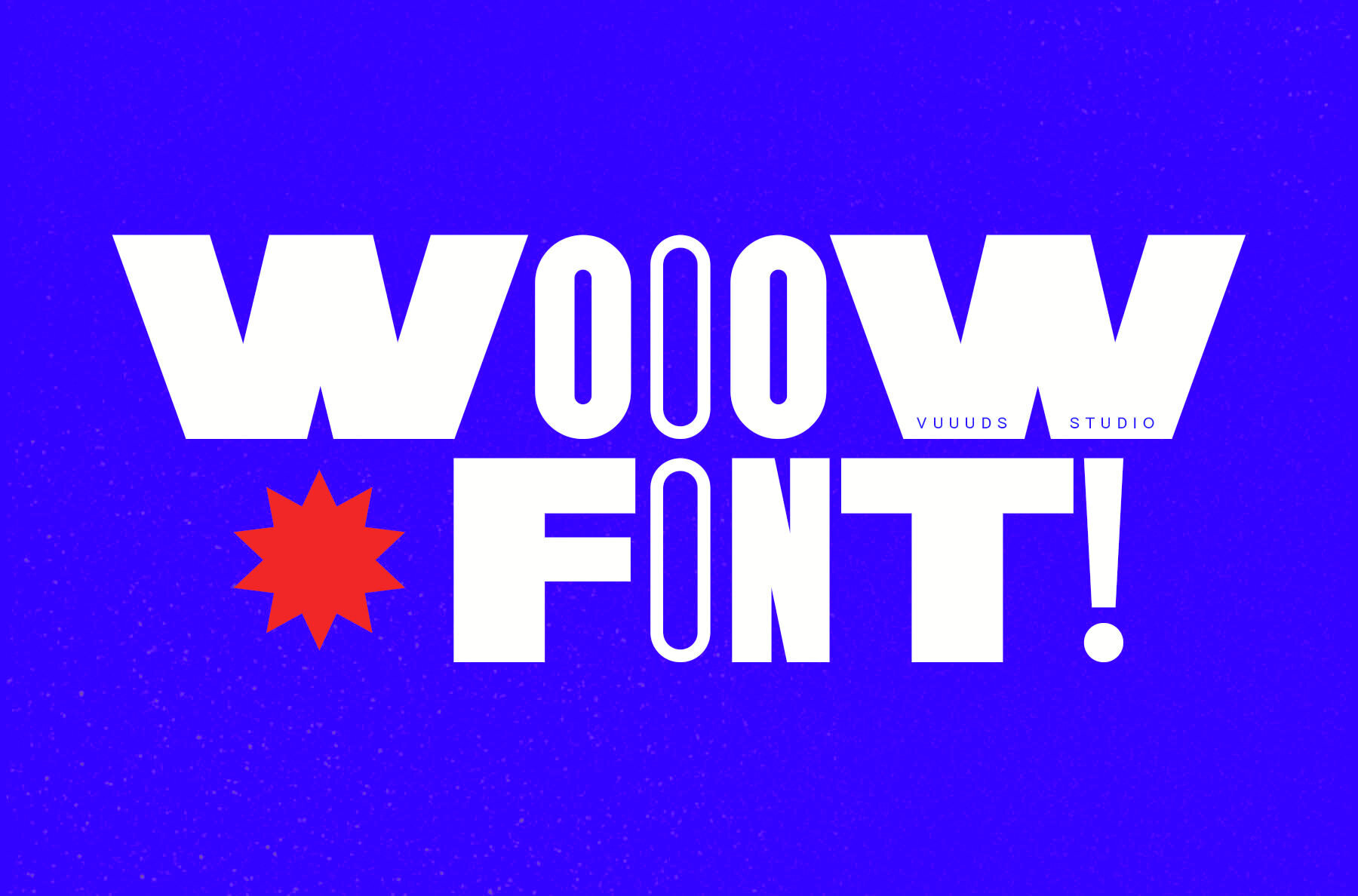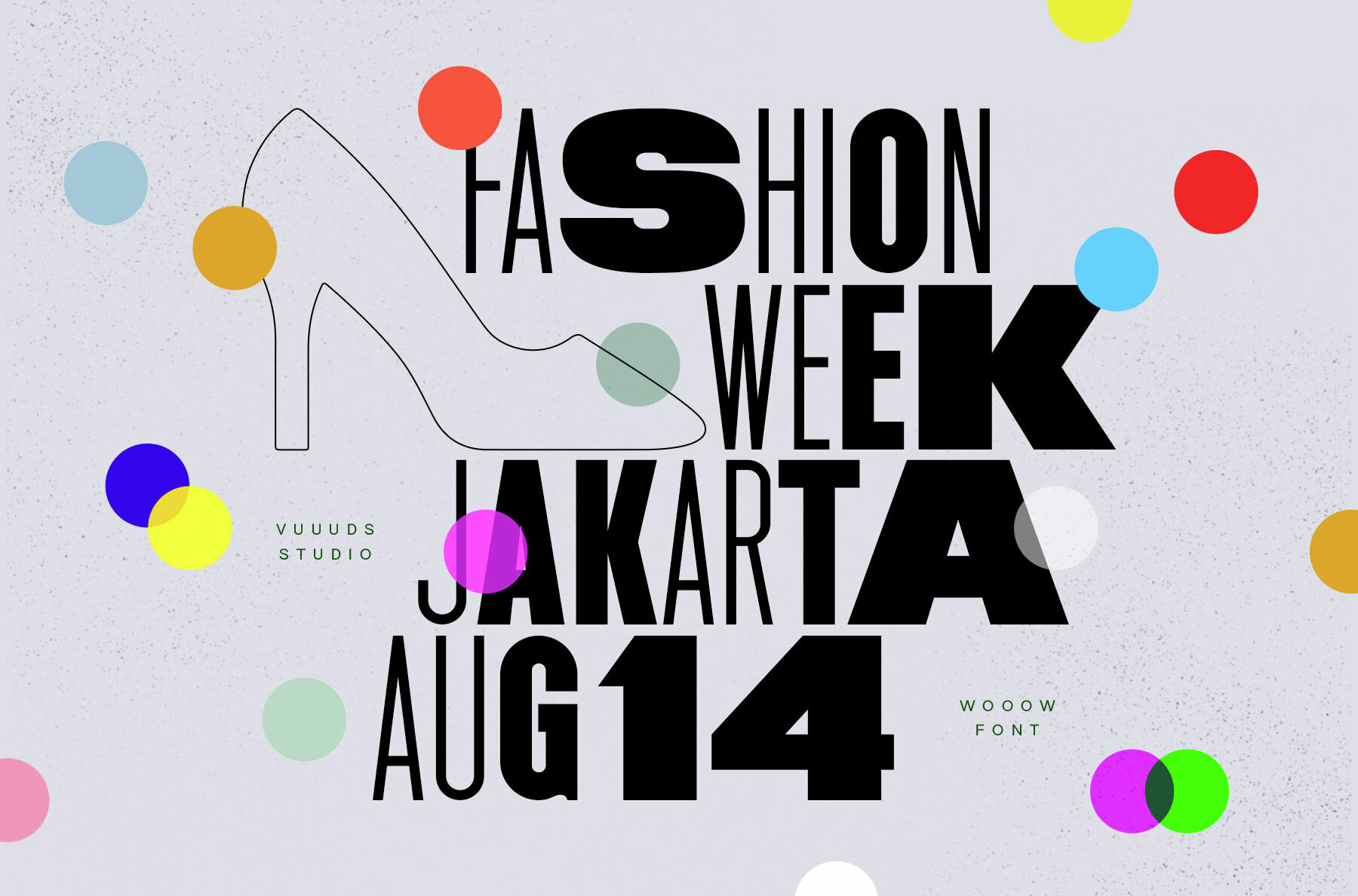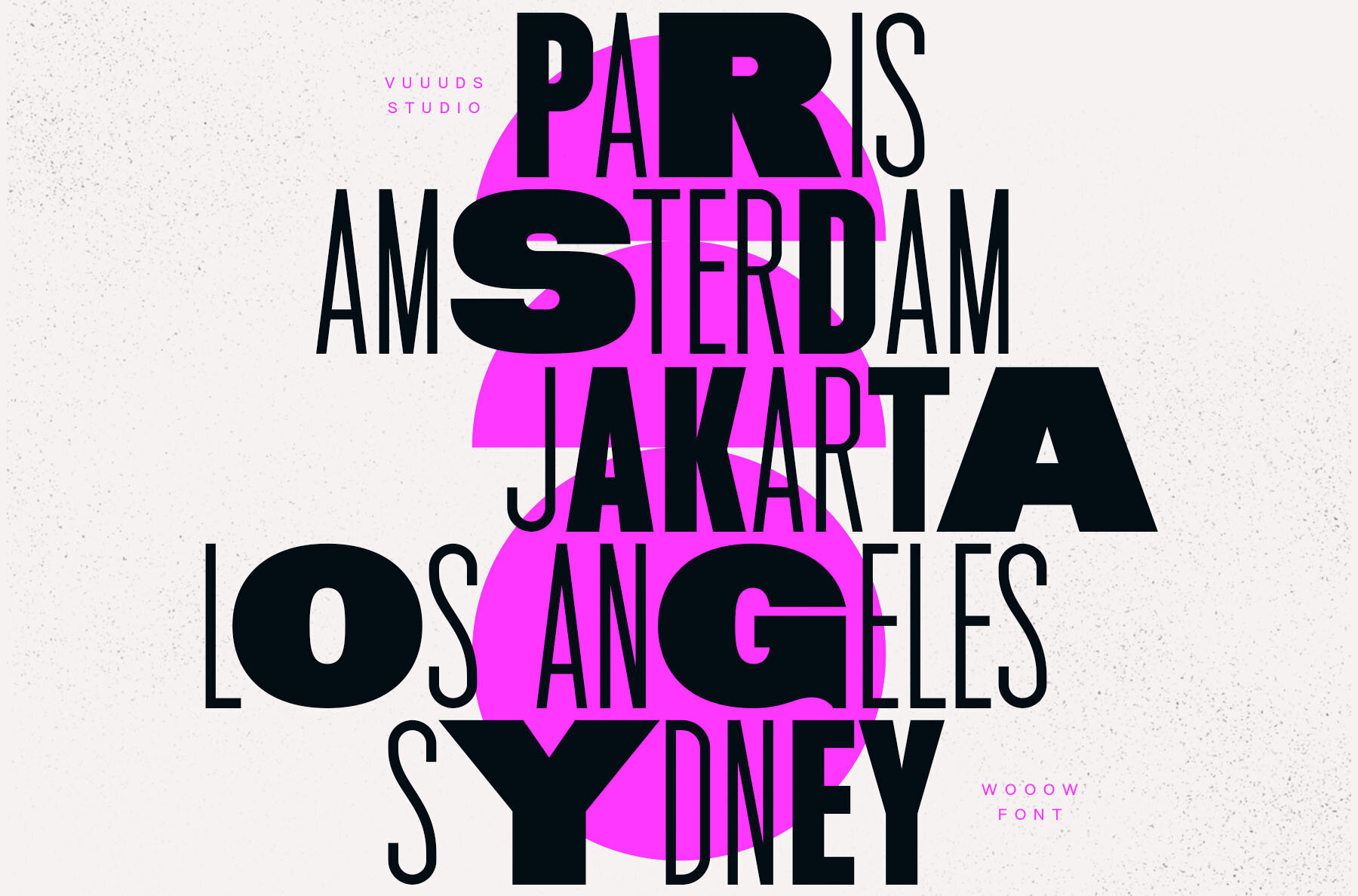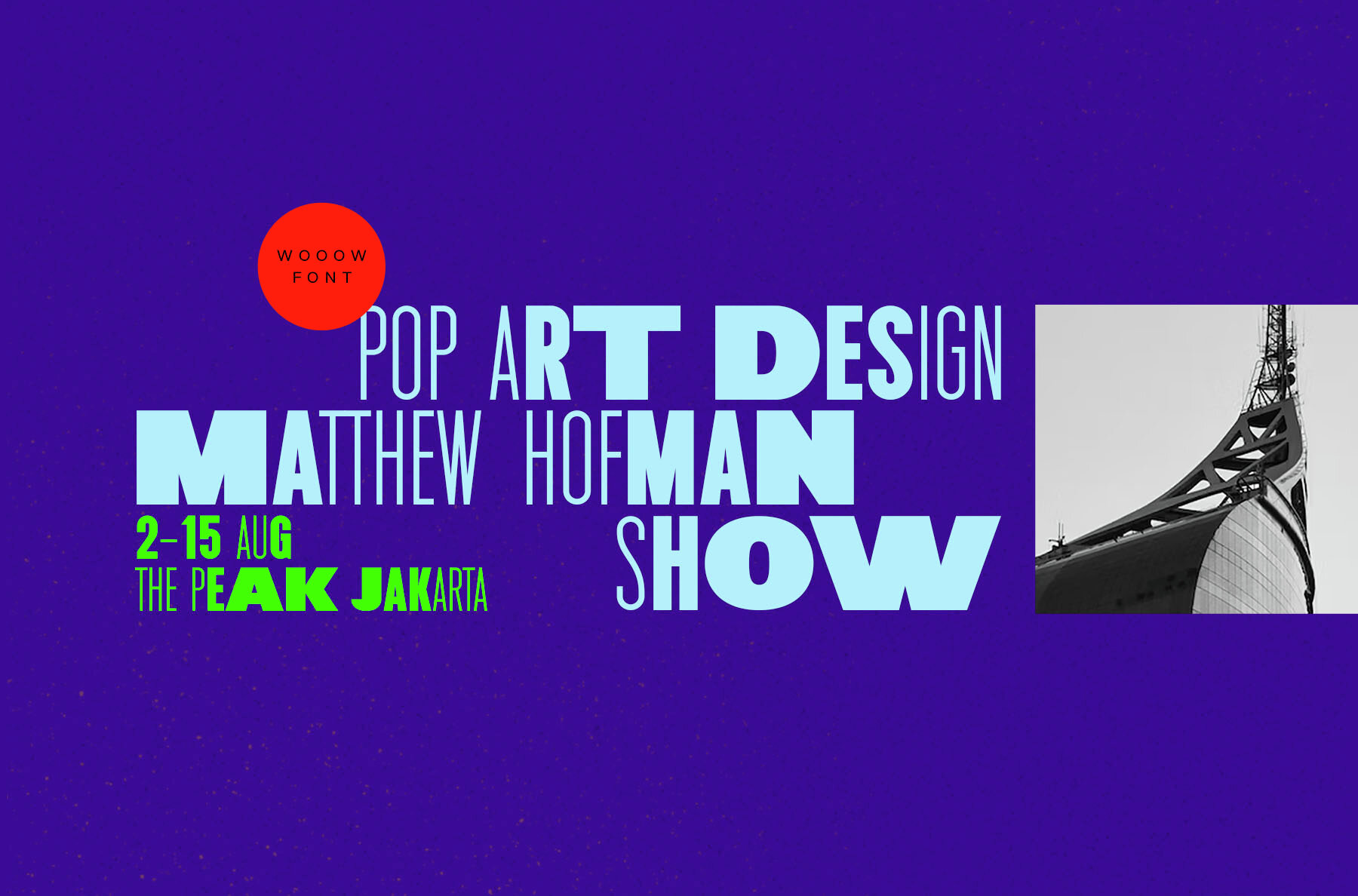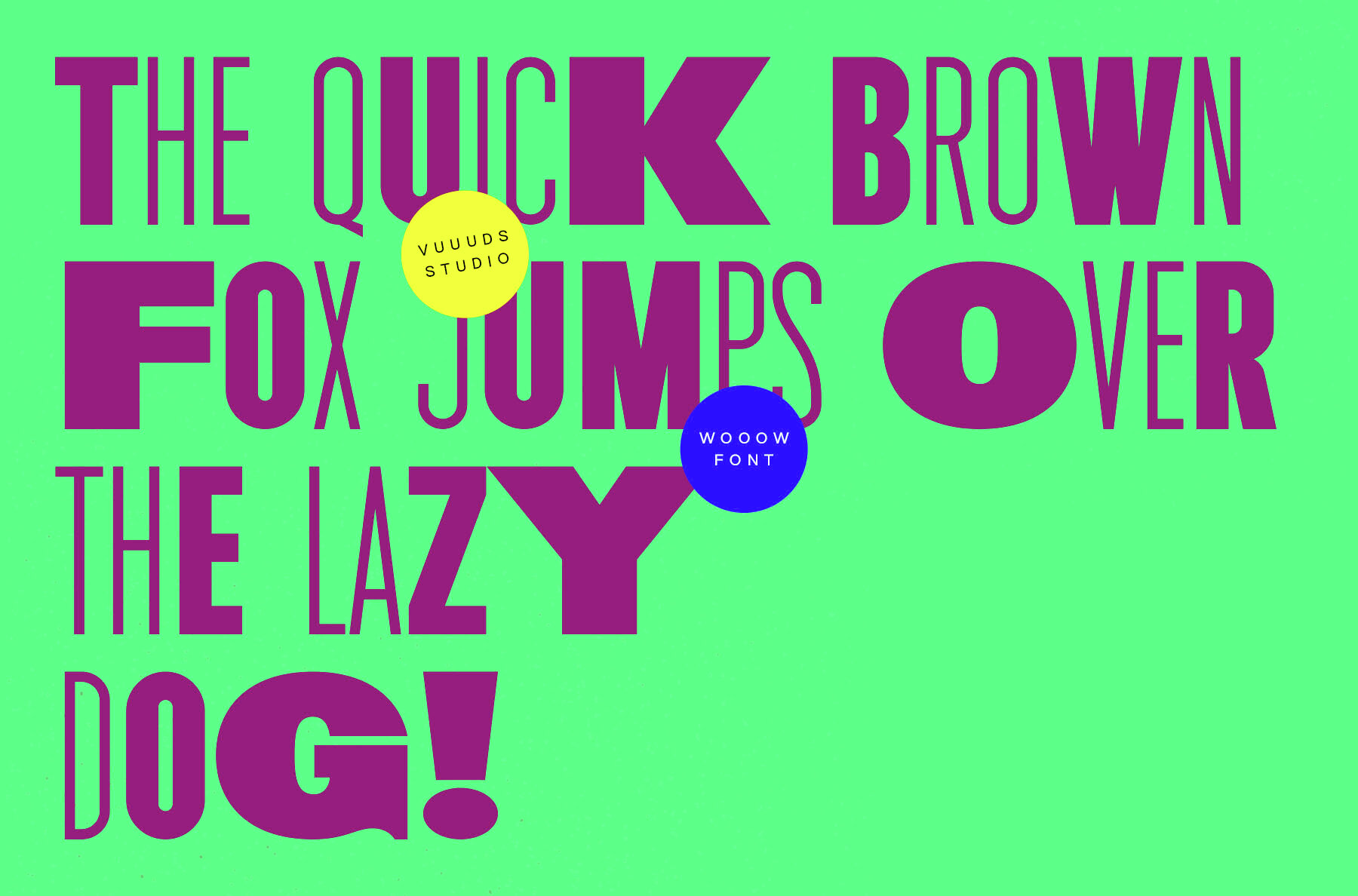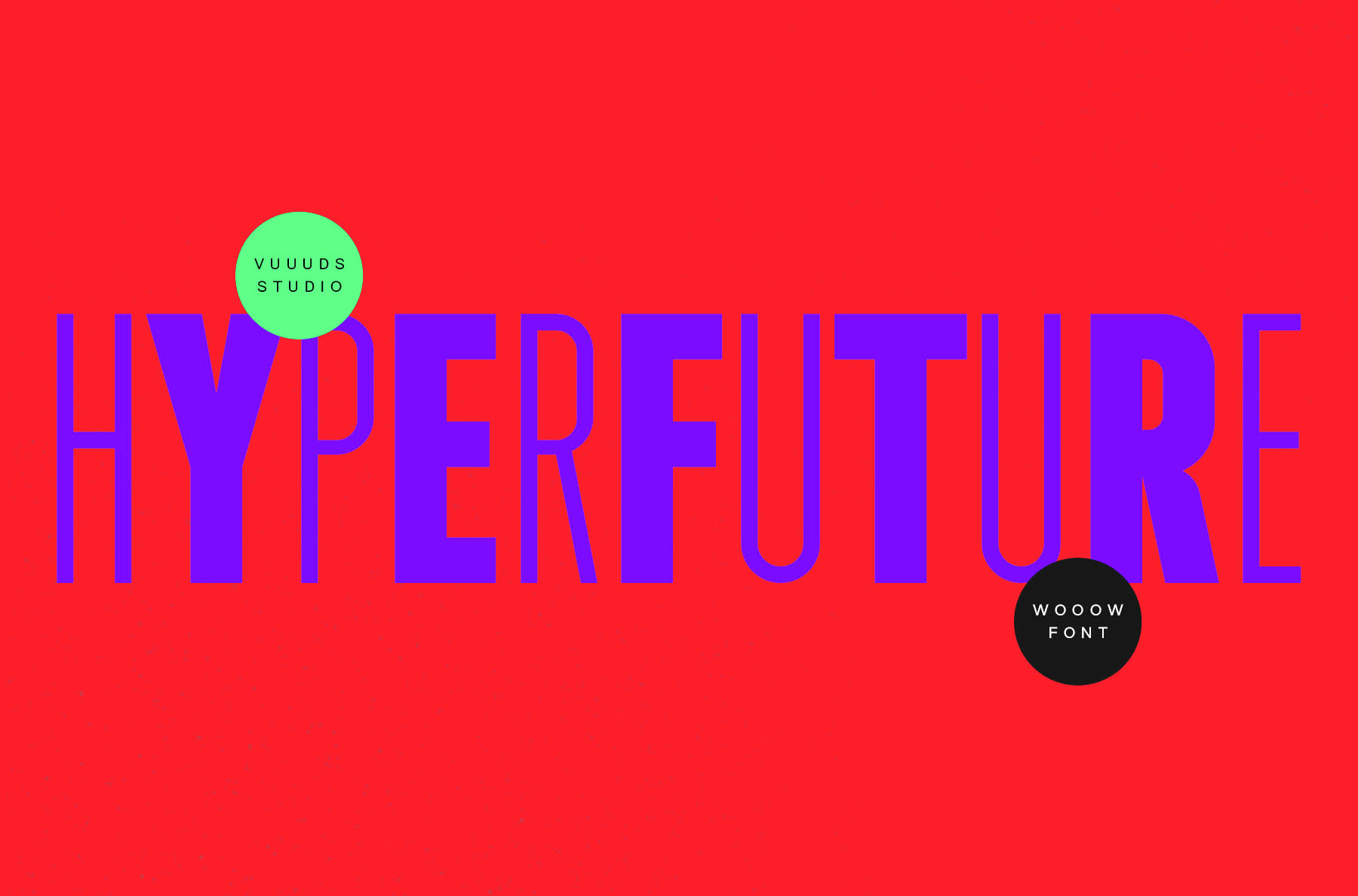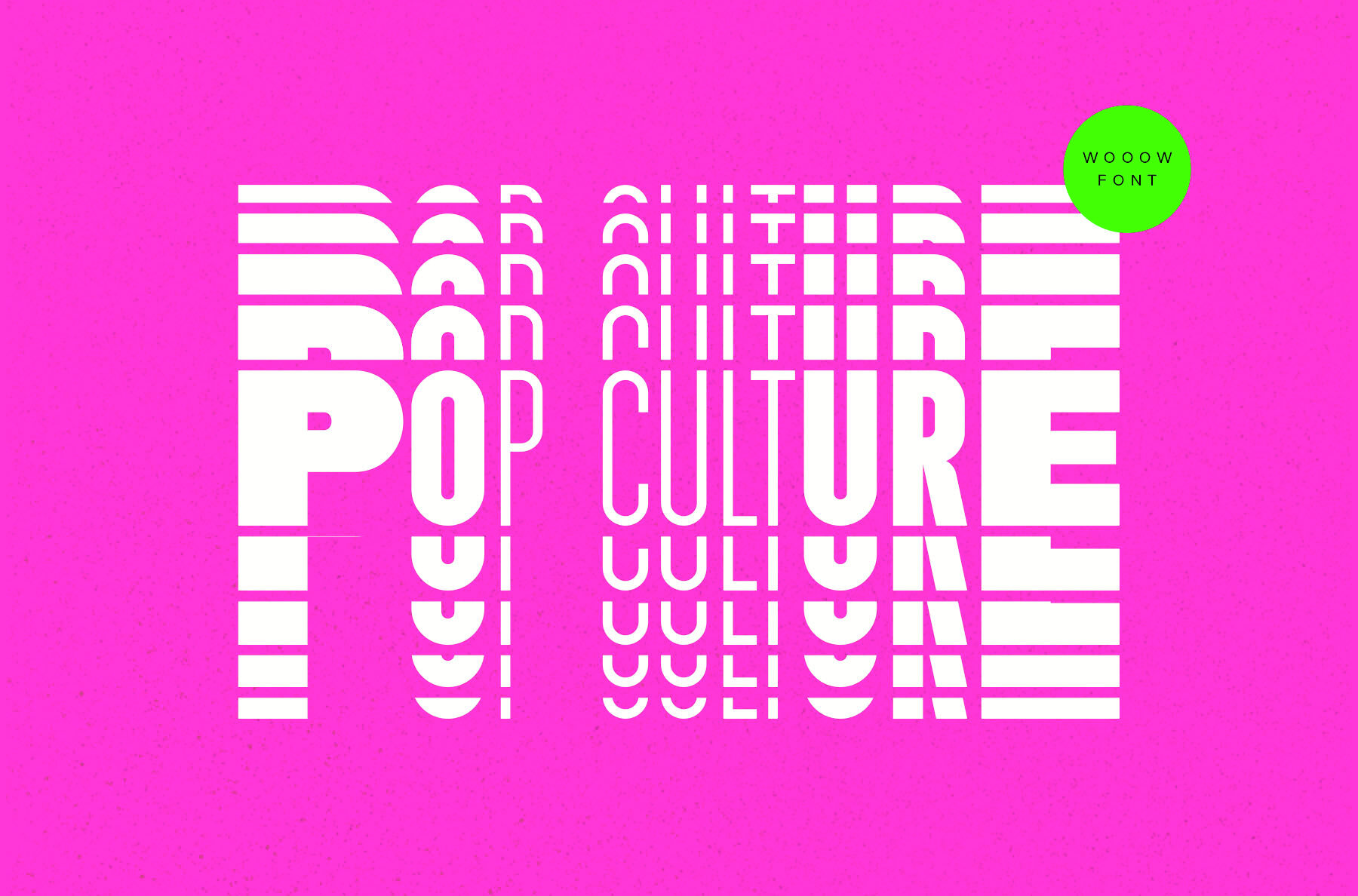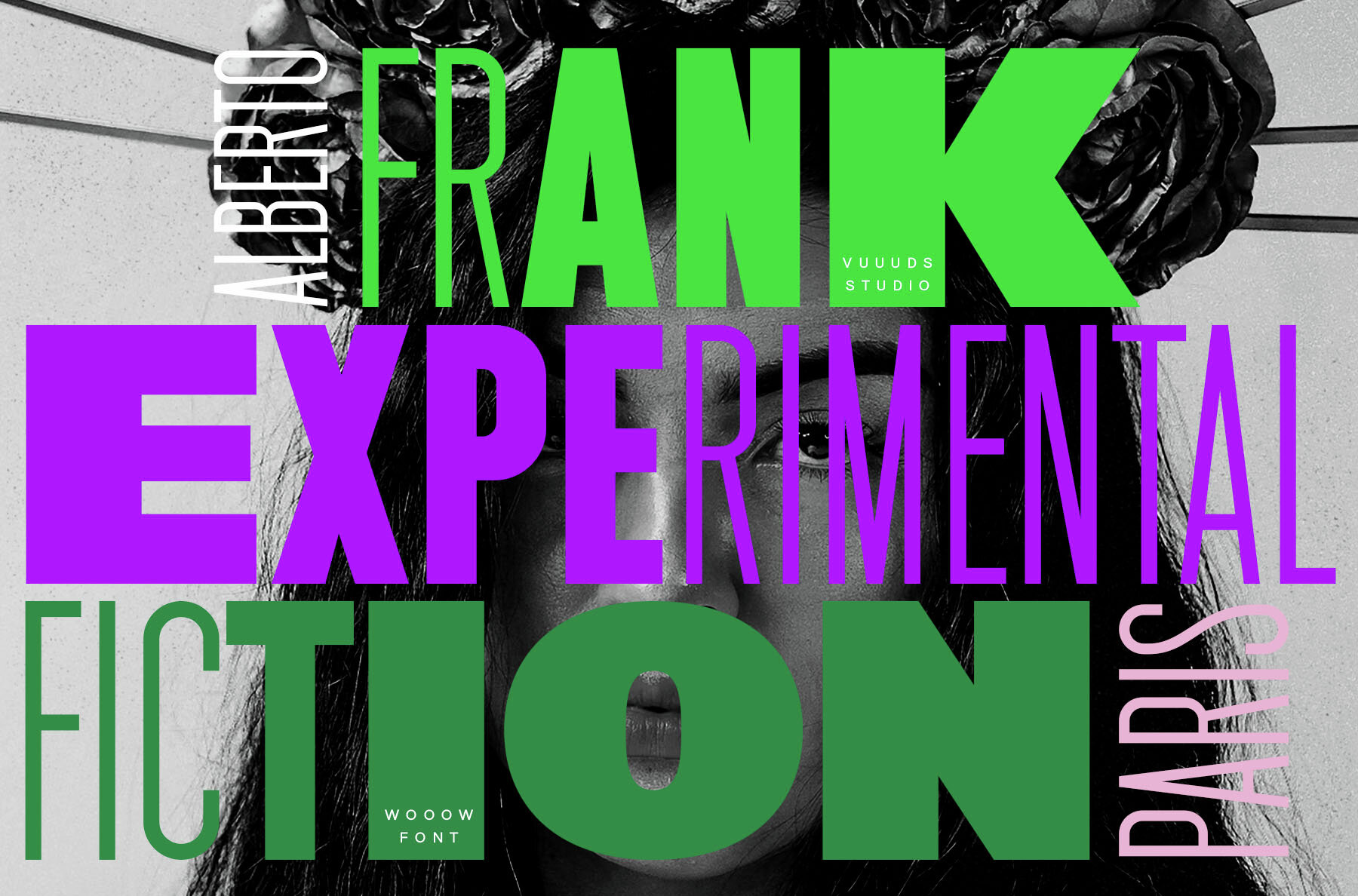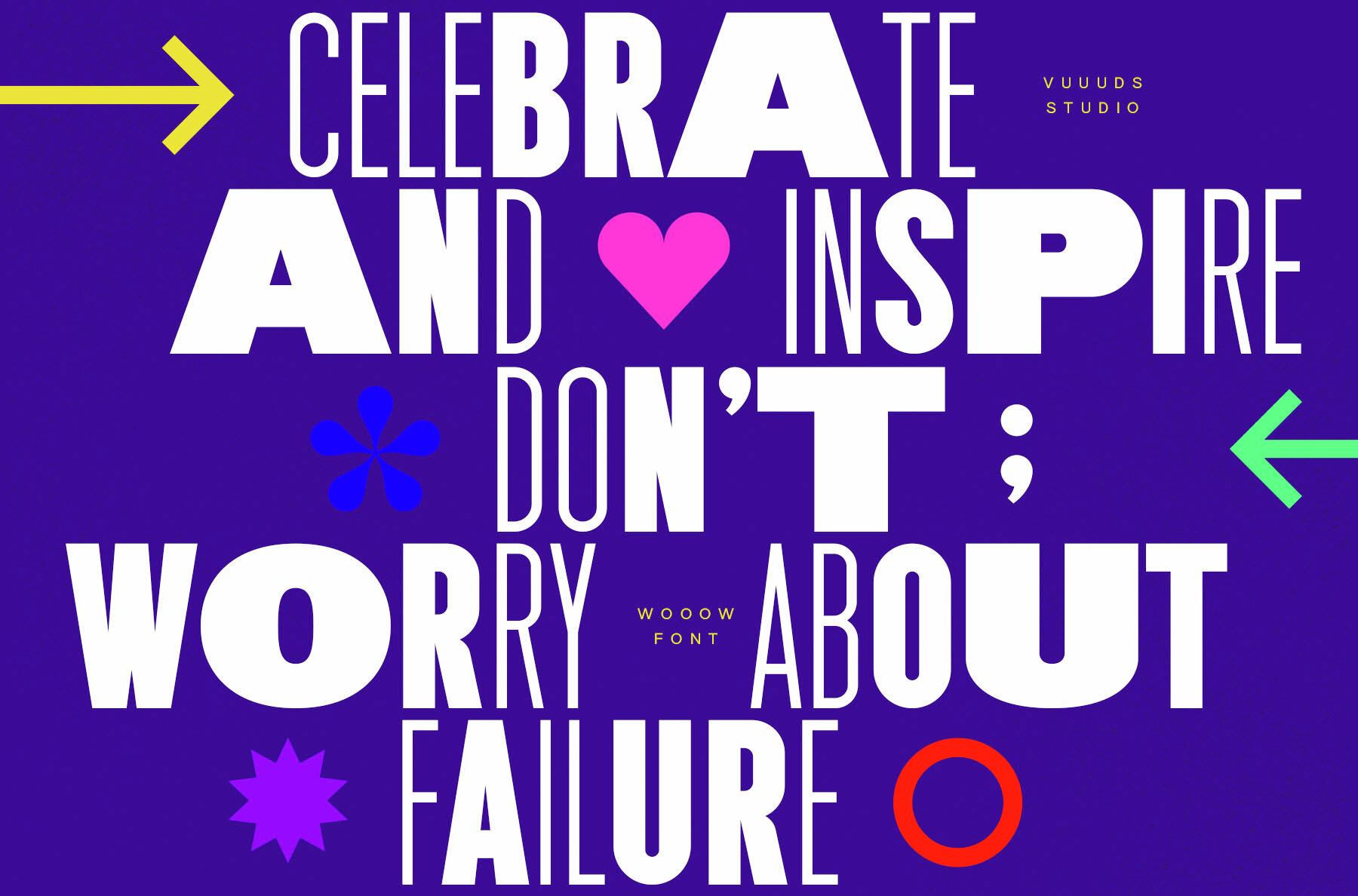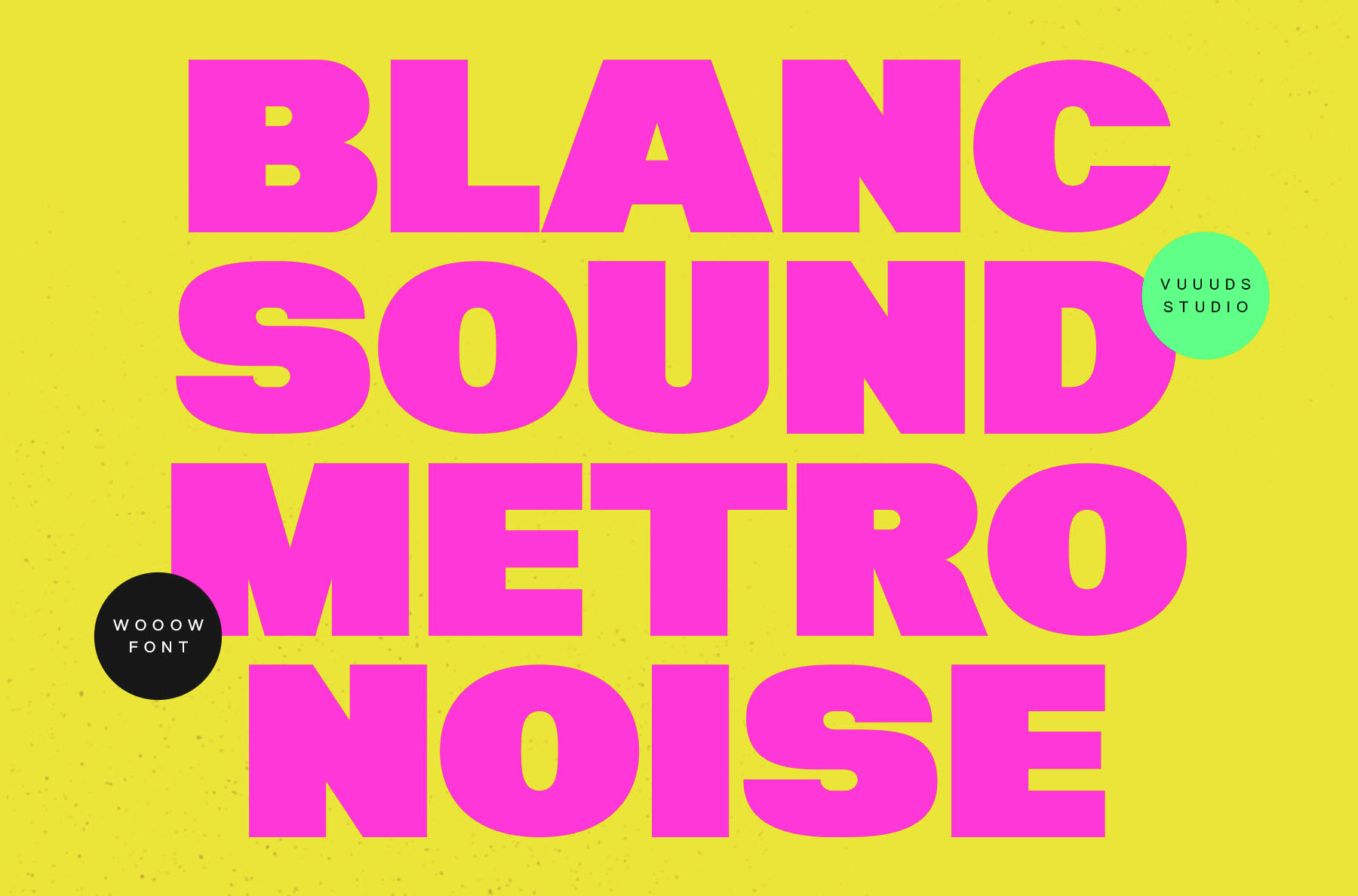
wooow Font
The Wooow font by Agung Syaifudin offers a unique and innovative take on modern typography. Each letter is distinctively crafted, offering three different styles that push the boundaries of traditional display fonts.Wooow: A Modern Experimental Display Font
Distinct Features